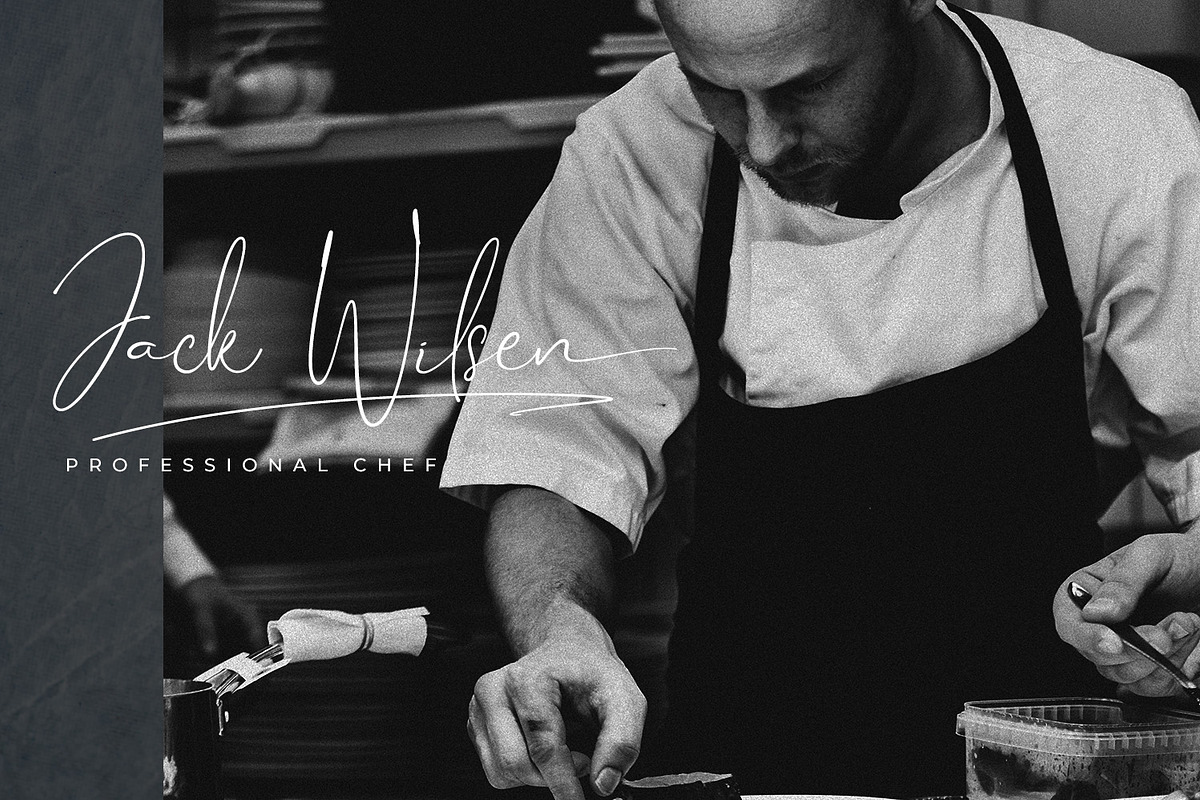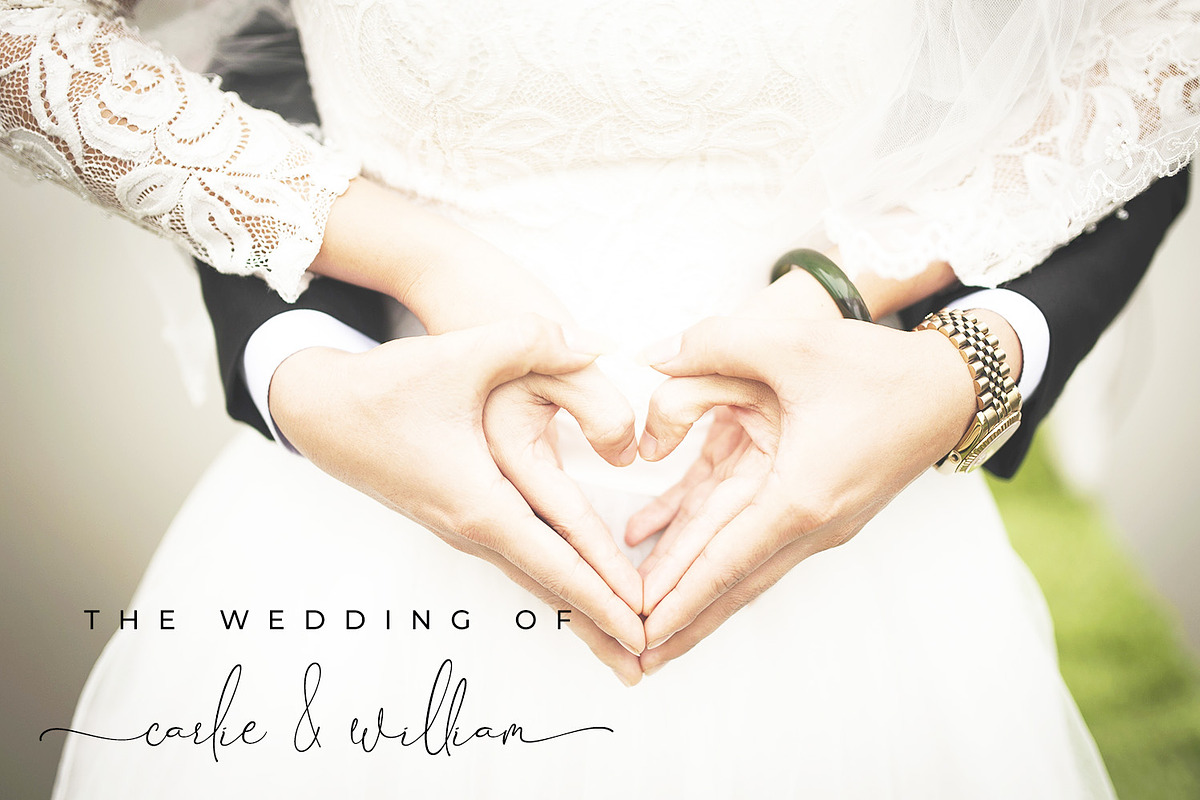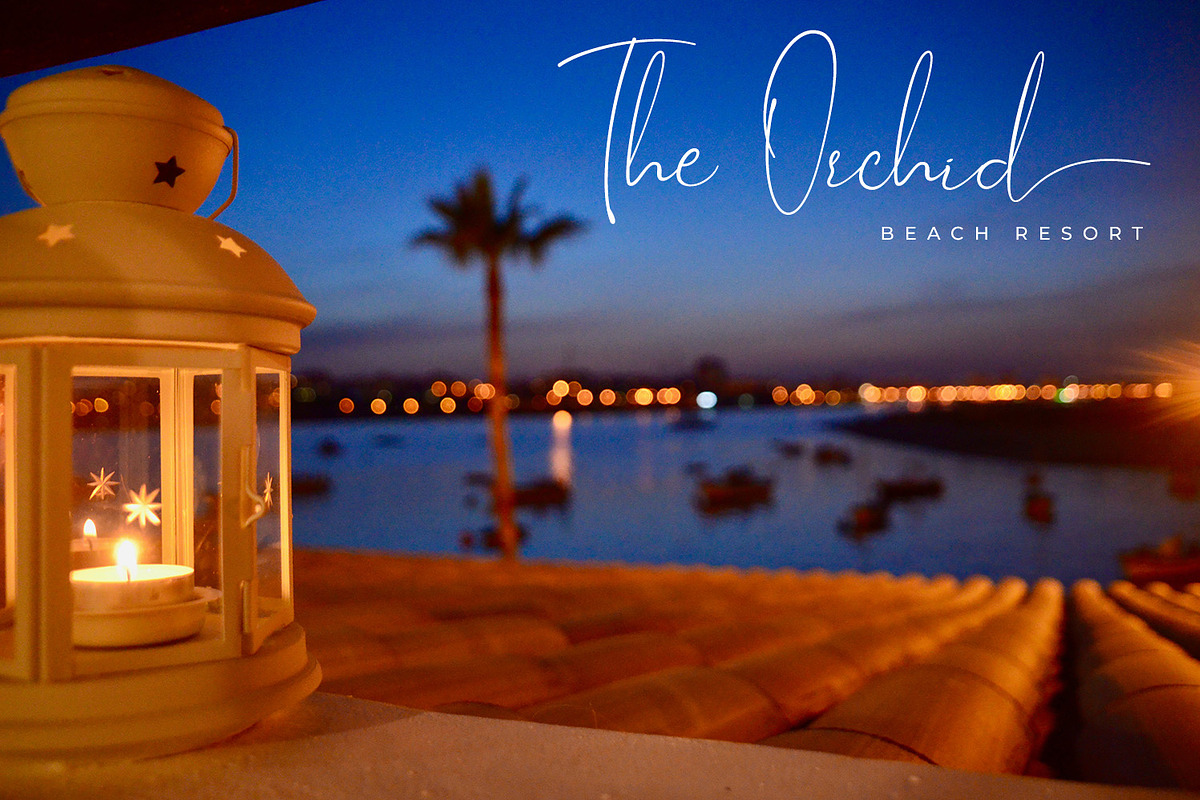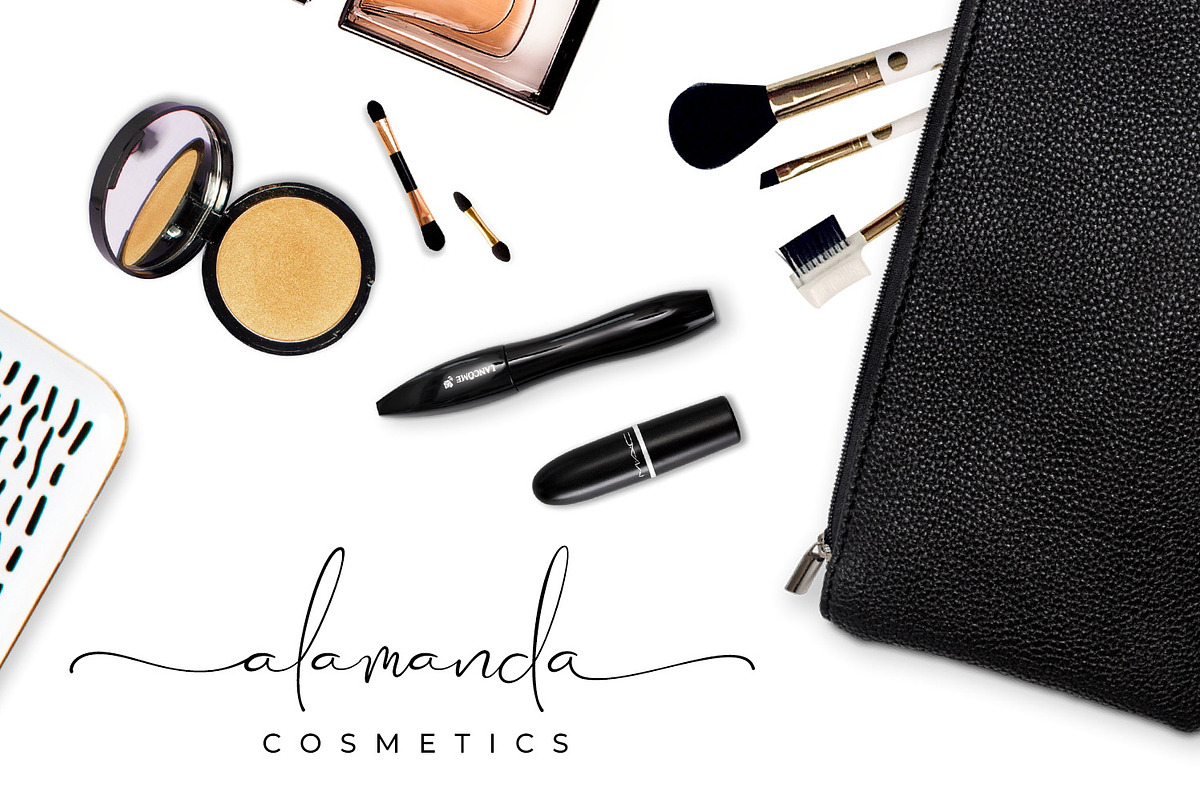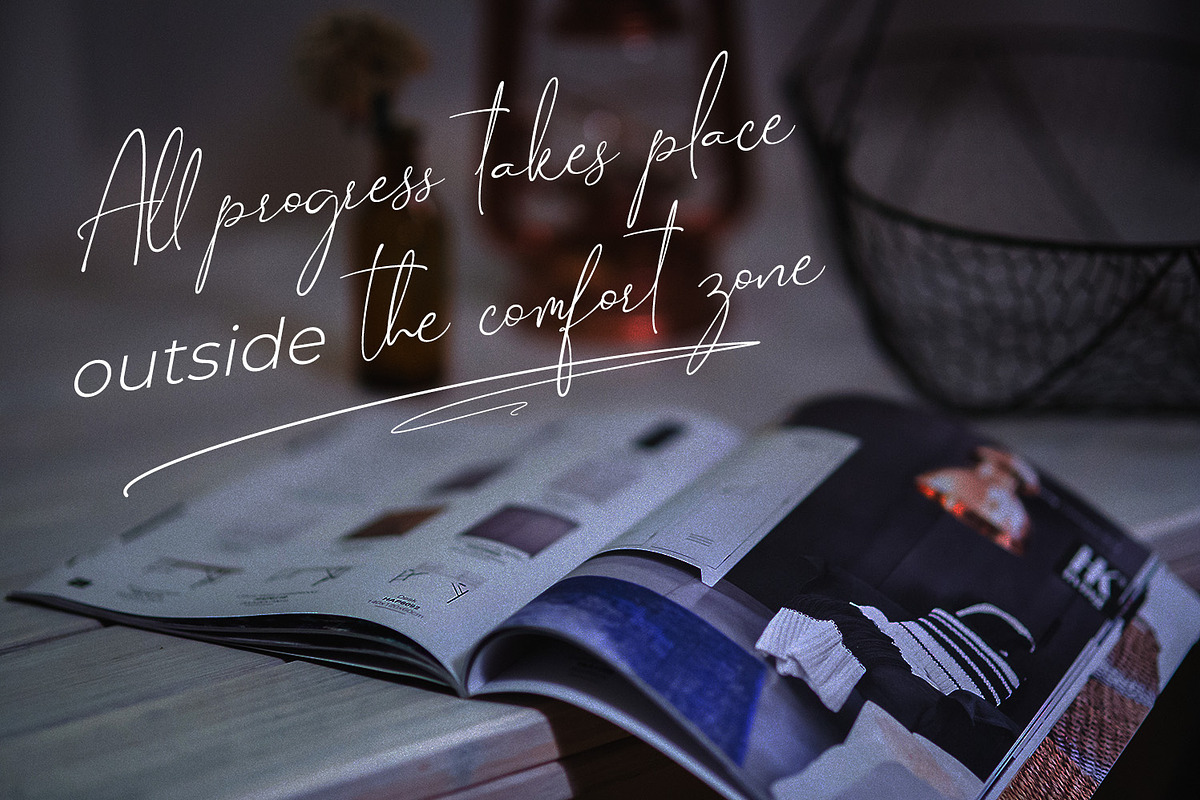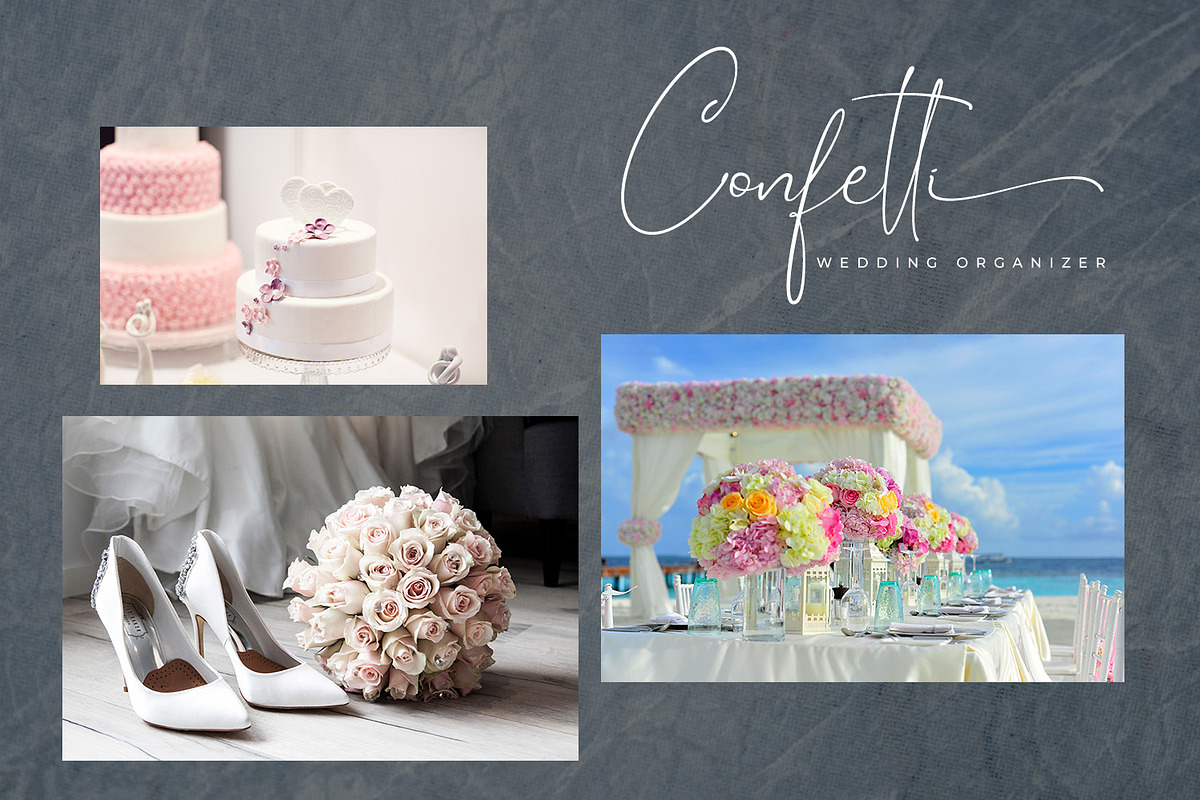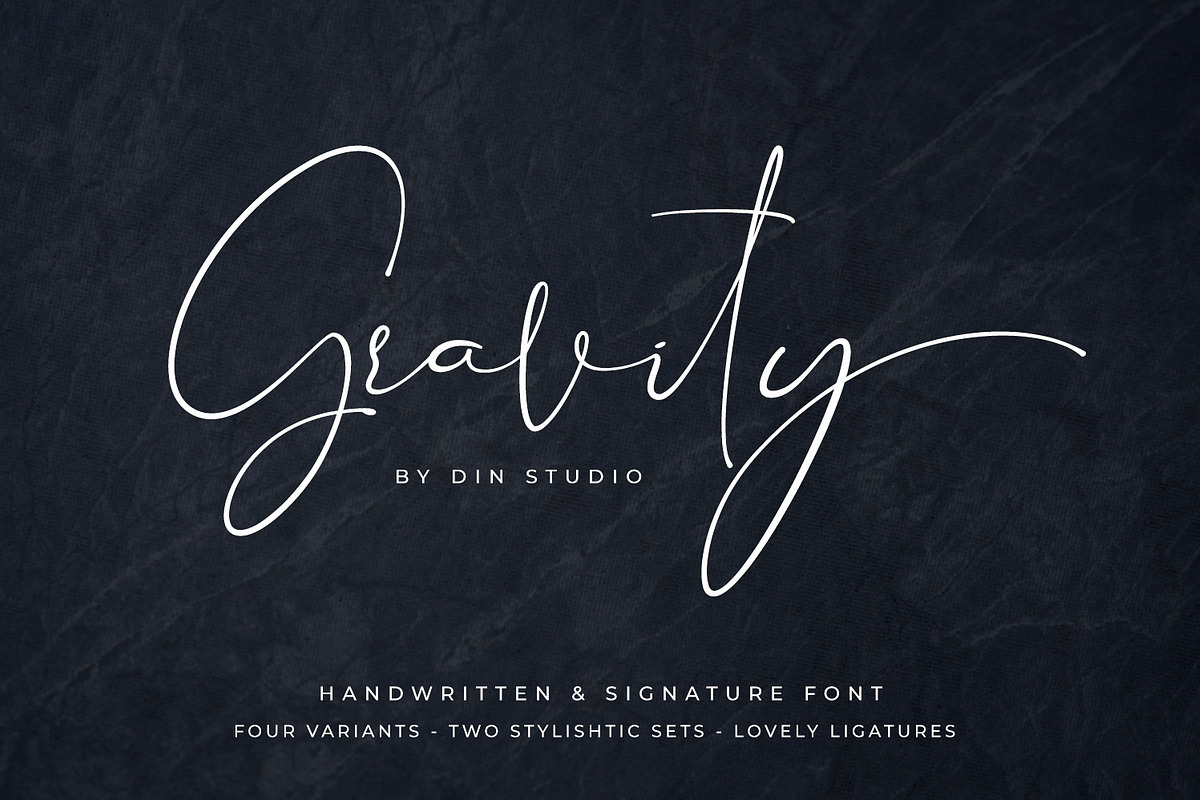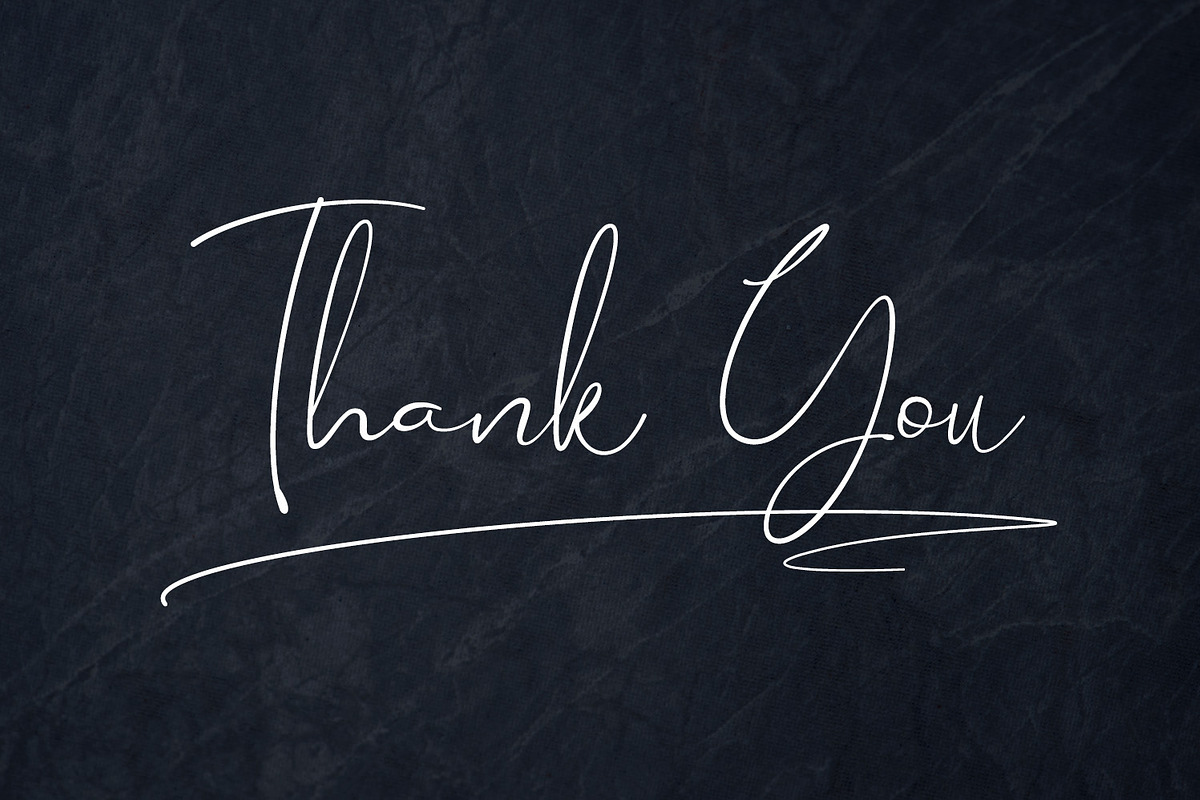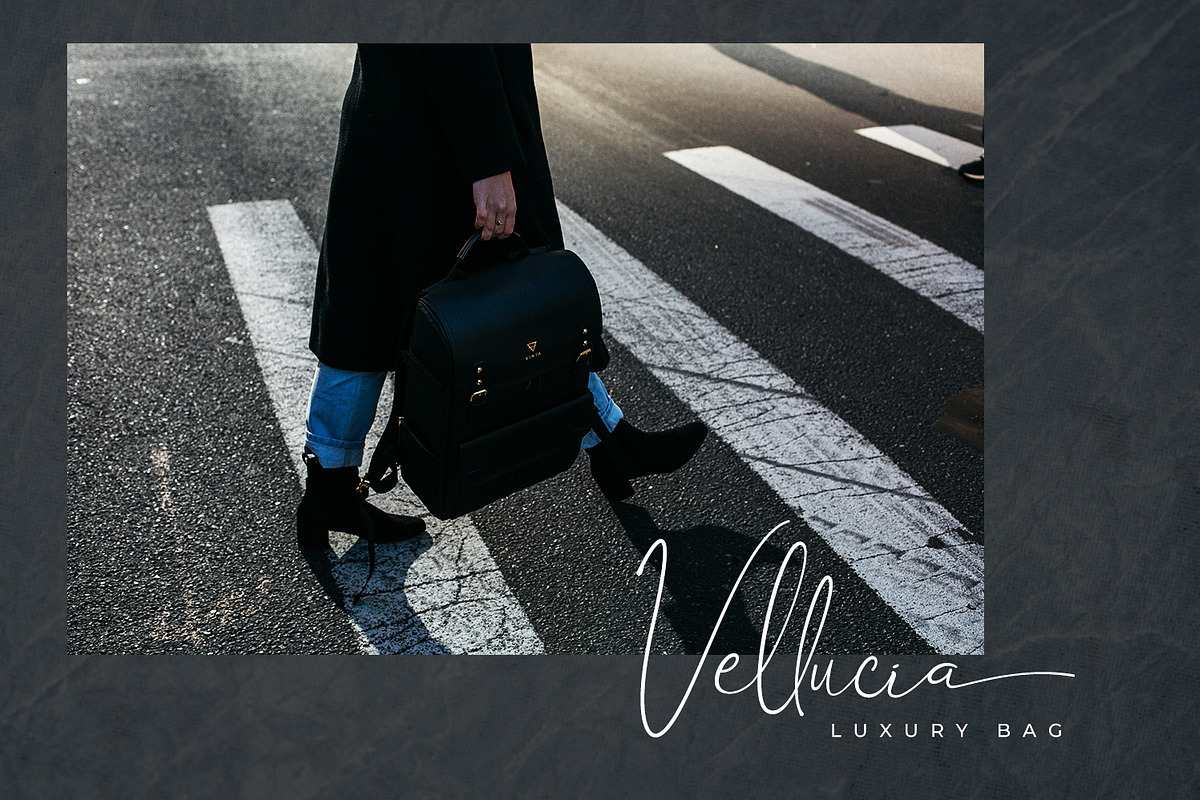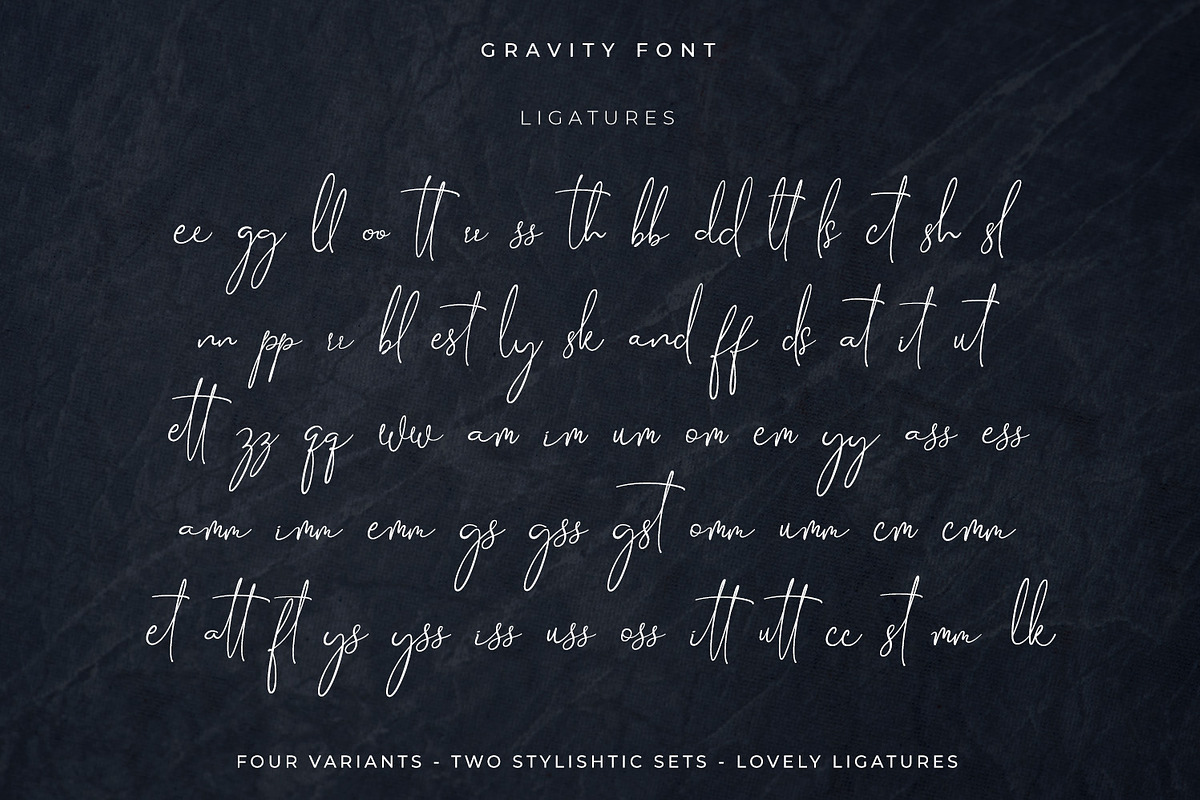
Gravity - Handwritten
Say hello to Gravity Font a luxury handwritten and signature style. With four variants of style, you can create more signature and handwriting fonts you like. This font is perfect for various designs, such as posters, banners, logos, book covers, headings, printed products, merchandise, social media, and more. Find out more ways to use this font by taking a look at the font preview.
- Gravity 1 (inc. Swashes, Handwritten Stylistic Set and Ligatures)
- Gravity 2 (inc. Handwritten Stylistic, Slant Version and Ligatures)
- Gravity 3 (inc. Signature Stylistic Set and Ligatures)
- Gravity 4 (inc. Signature Stylistic Set, Slant Version, and Ligatures)
- International Character Support